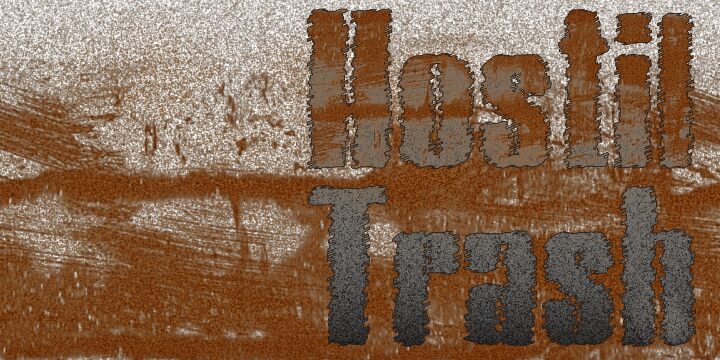
Hostil Trash by Paulo W of Intellecta Design is a free eroded display font with tall, forceful letterforms and a rough industrial surface. Ragged edges, deep scratches, and uneven breaks give the dense lettering the look of battered ink or damaged signage.
Posters offer an apt setting for its aggressive texture, especially in punk, metal, and underground music graphics. The same distressed construction can shape album covers, event merchandise, and game graphics centered on decay, conflict, or hostile urban environments.
Hostil Trash Free was created by Intellecta Design. It has a different set of styles from the original Hostil font.
Hostil includes complete character sets for Latin, Hebrew, Cyrillic, and Greek, as well as Central European, Vietnamese, Baltic, and Turkish character sets with diacritics, punctuation marks, and additional characters for these ranges.
It is available in Regular, Bold, Italic, Outline Wide, ExtraWide, Shadow, and Compressed styles.